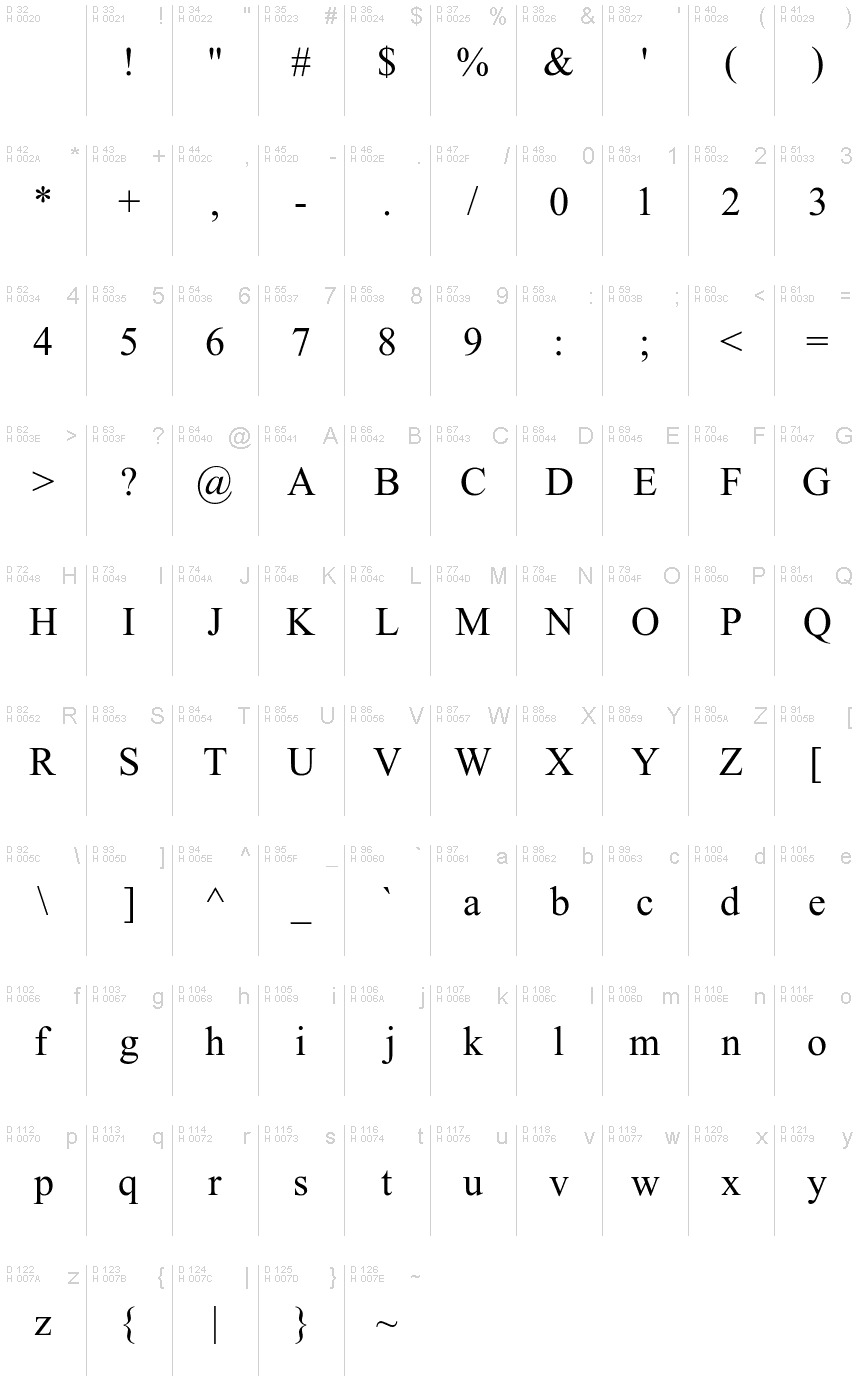
YagpoSambhotaUni
Yagpo Sambhota Unicode it is Tibetan Unicode OpenType font which support full 0x0F00 and GB18030 code table and additional 4400 ligatures. It contain about 11 250 letters which include all tibetan stack letters from texts of Baikal Lake Enlightenment Stupa Zung texts, Kanjur, Tenjur, Open Source Buddhism Library text corpus , ACIP and TBRC texts.
Yagpo Sambhota Unicode is designed in Open Source Buddhism Library project and inspired by Sambhota font collection.
Font supported both Tibetan Unicode and GB18030 code table and suitable for PDF composing. If PDF is open by Adobe Acrobat, font give opportunity to copy correct Unicode text from PDF document.